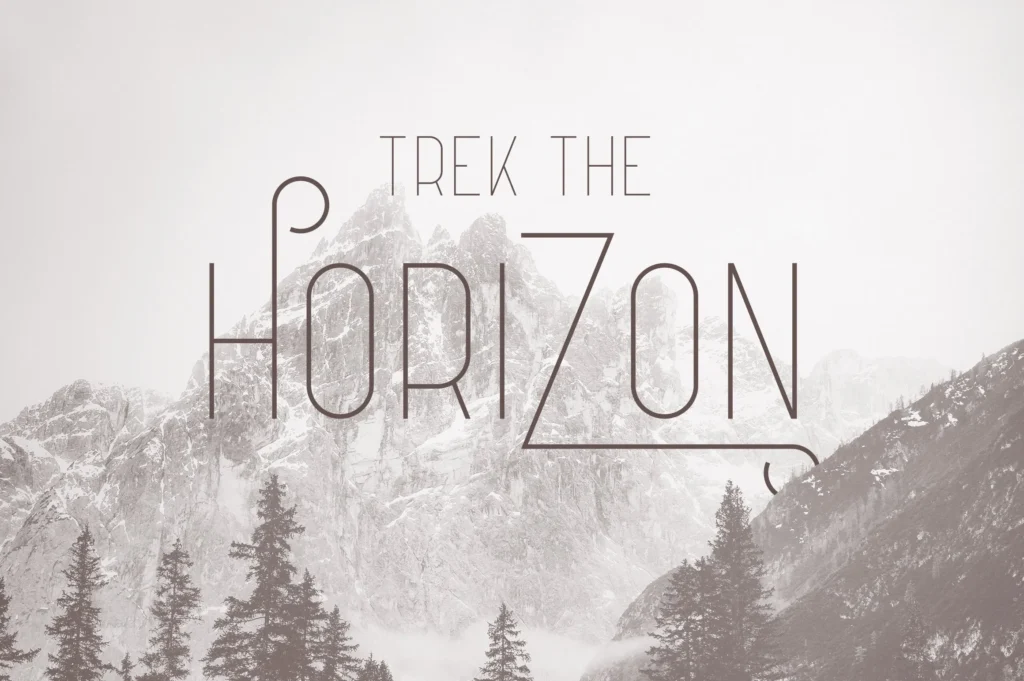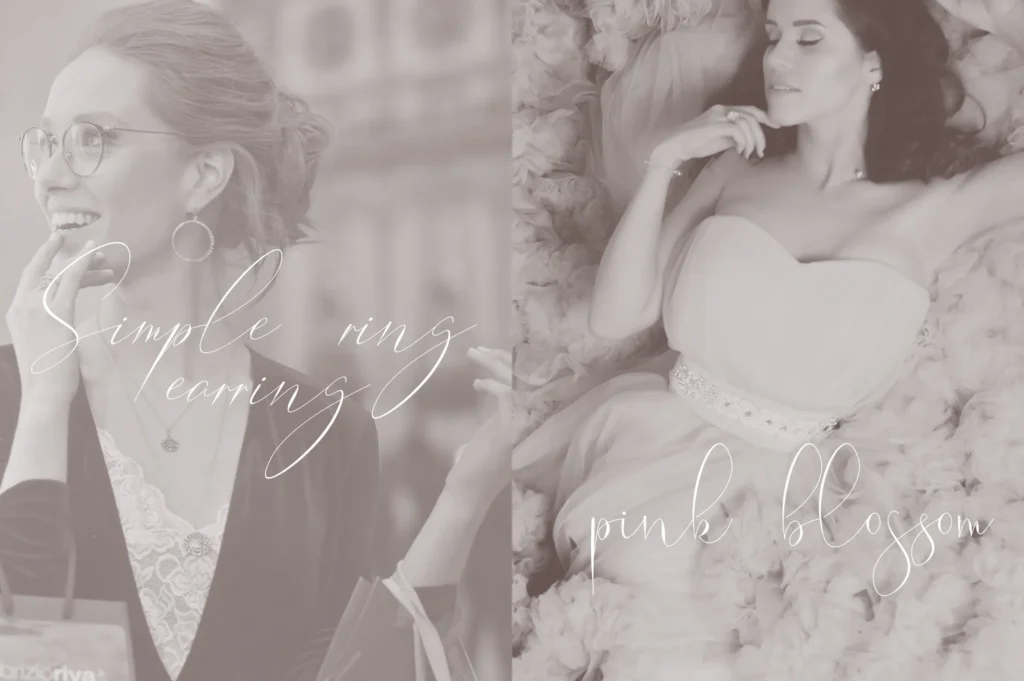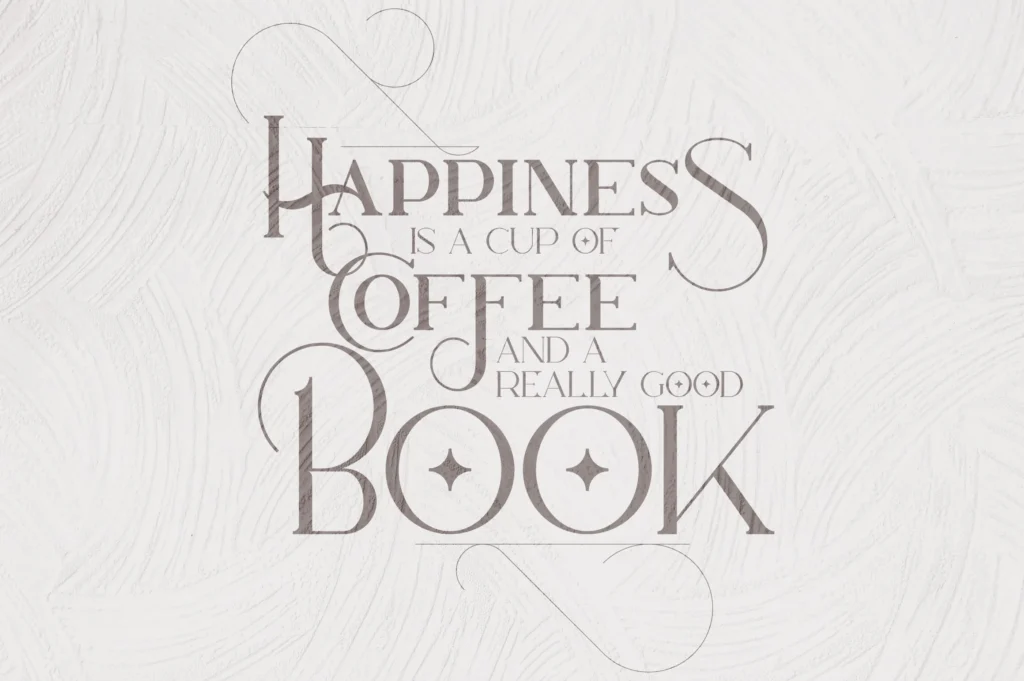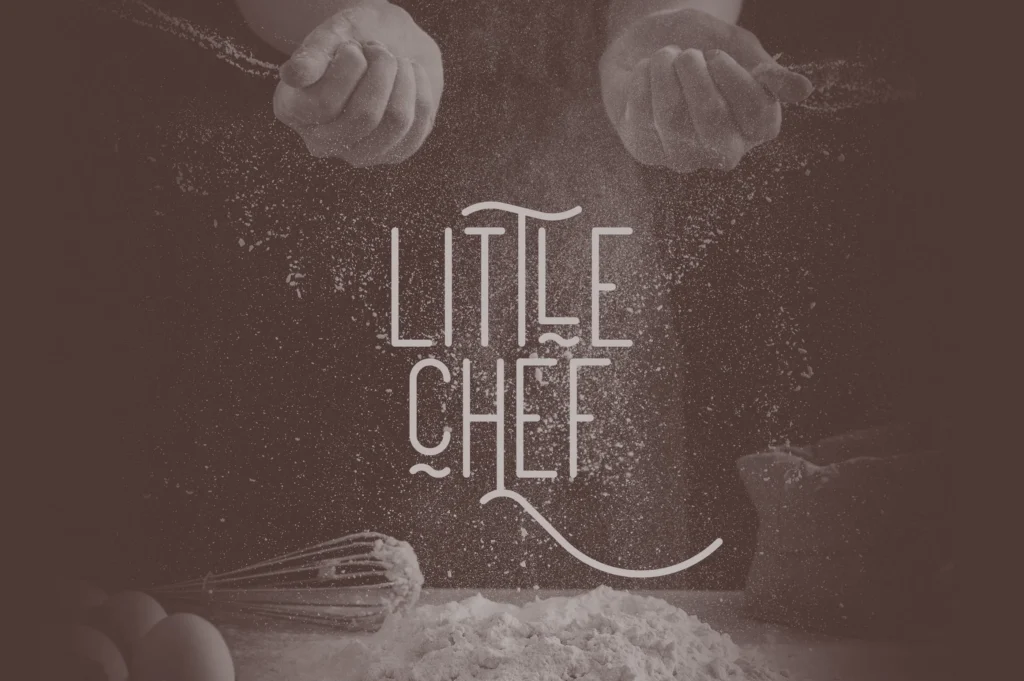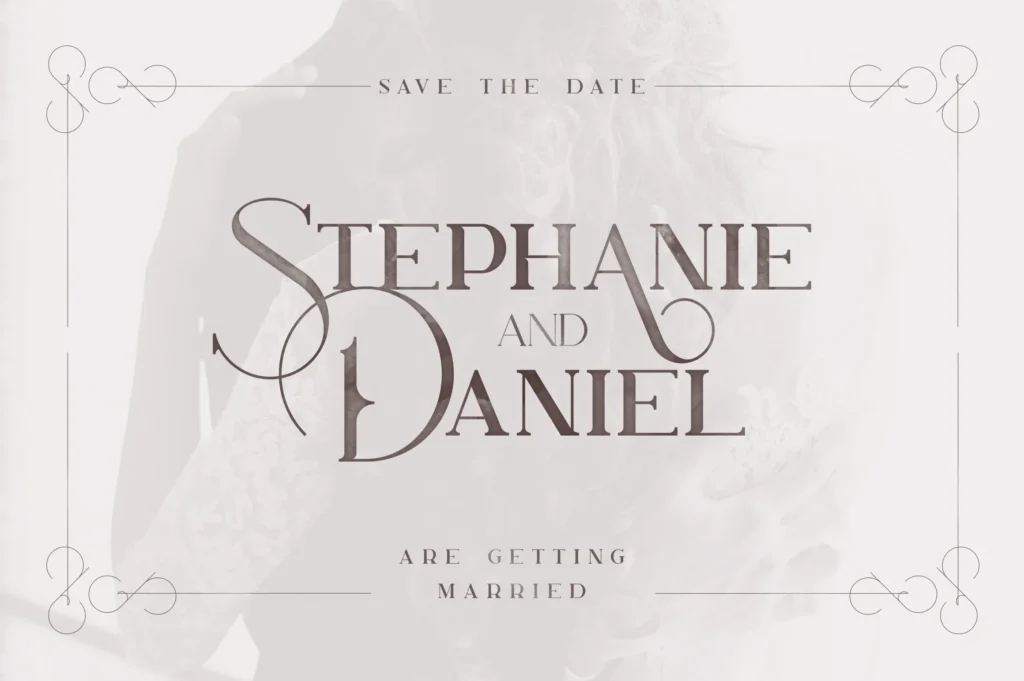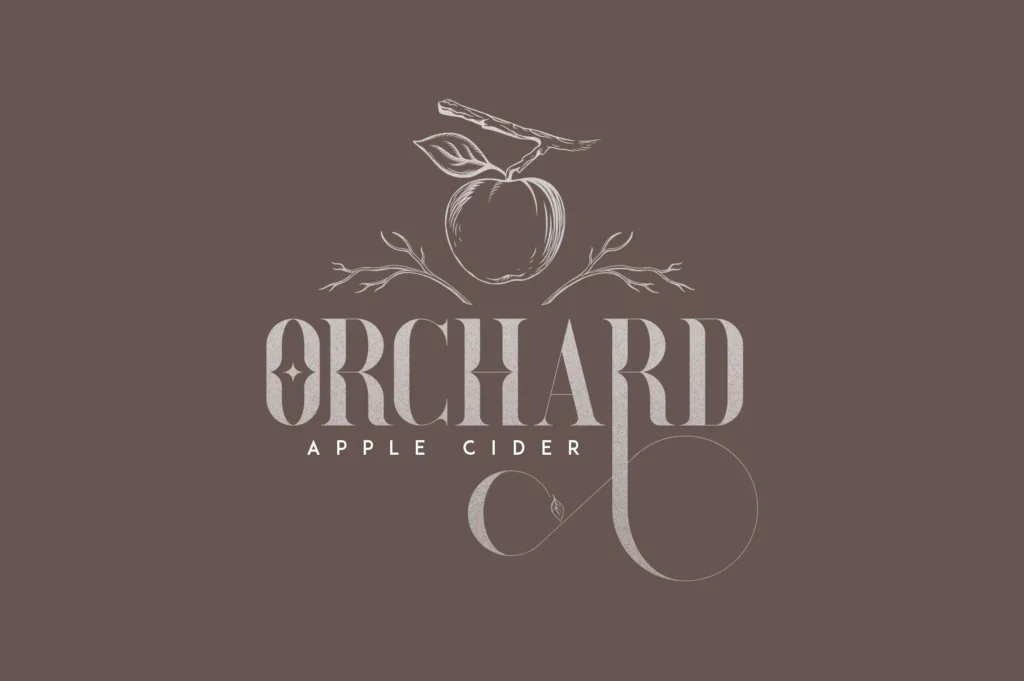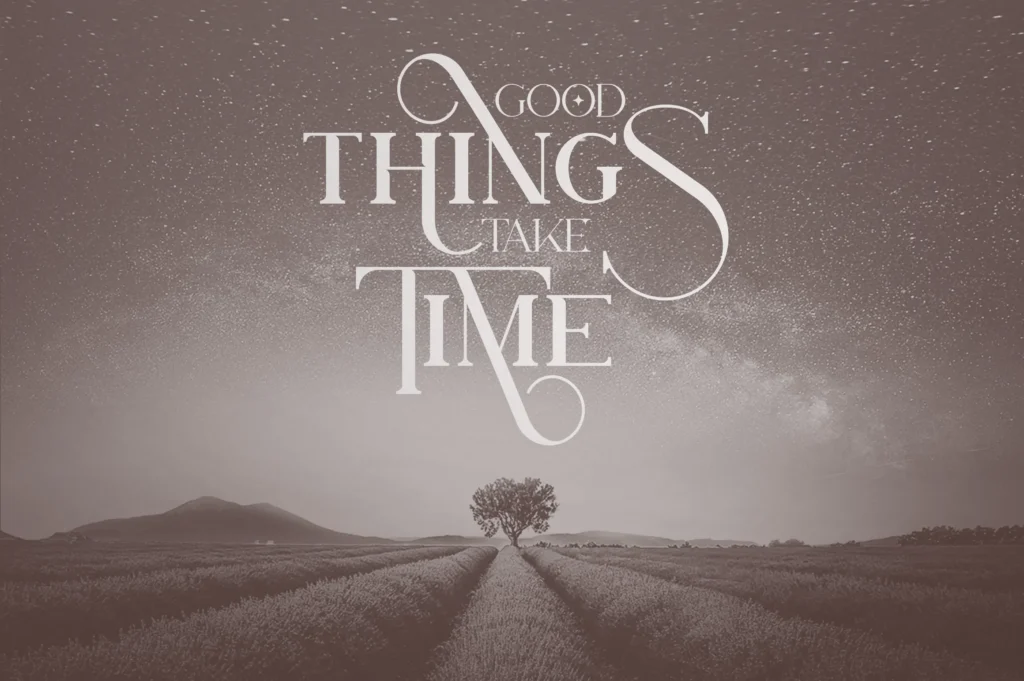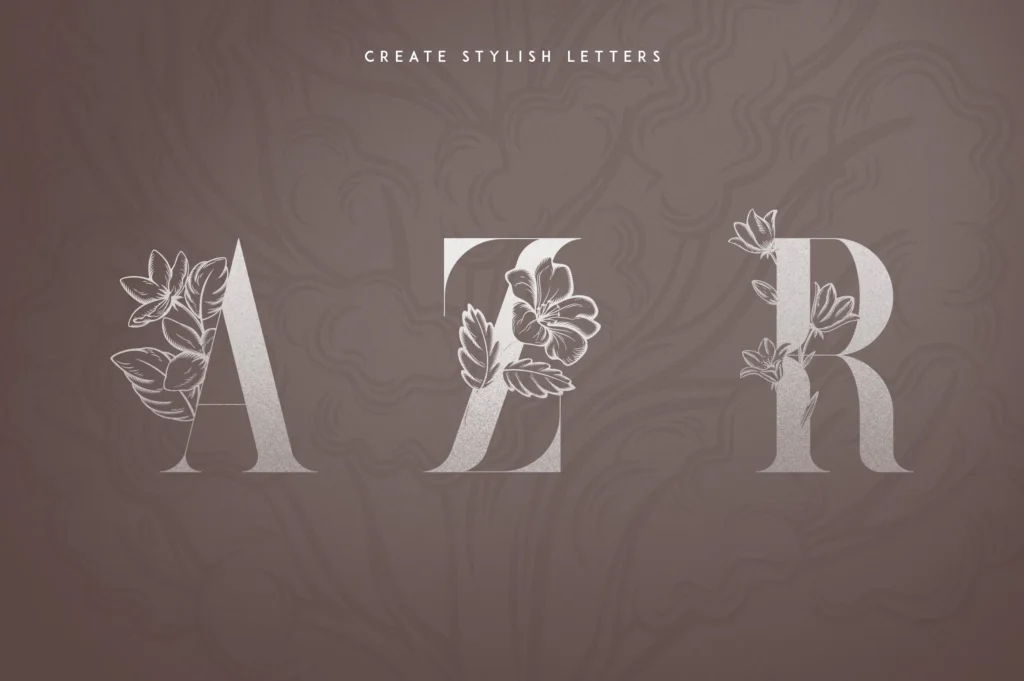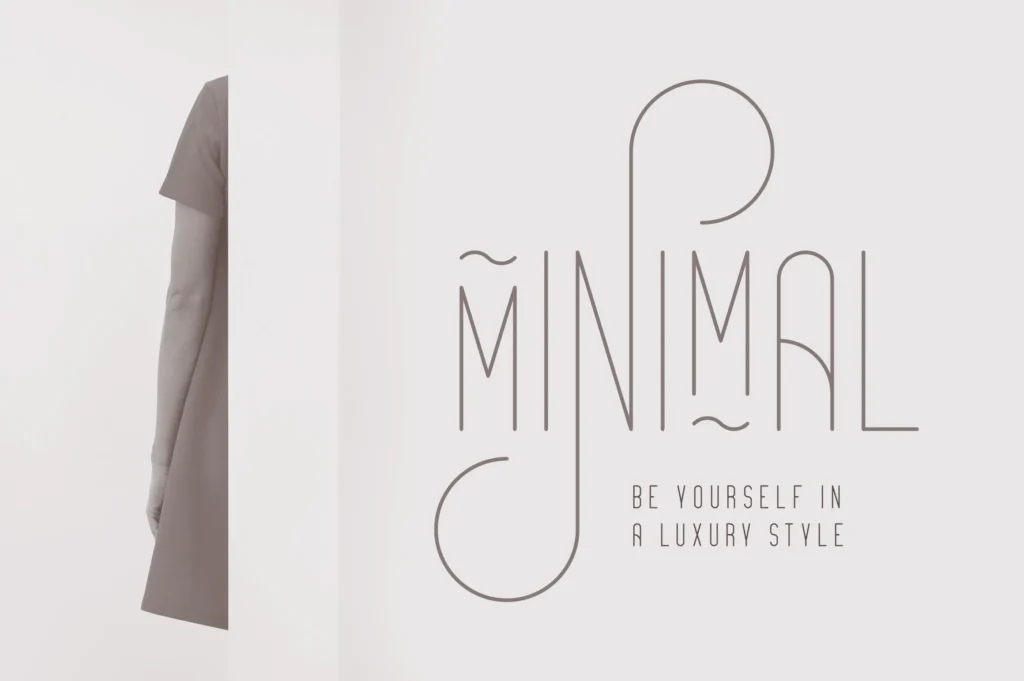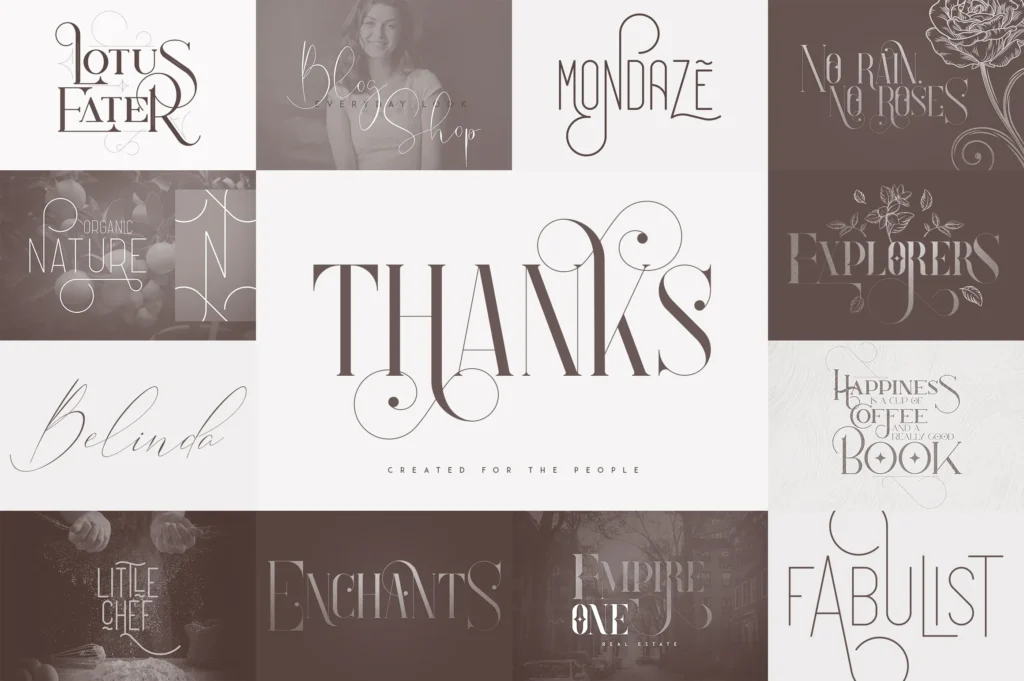
The Bestseller Font Collection
Introducing
T
he Bestseller Font Collection
A collection of
6 top selling typefaces in 1
bundle from
VPcreativeshop
.
In this collection you will find :
Fabulist – Display font
Explorers – Serif font + Extras
Lotus Eater – Vintage font + extras
Mondaze Typeface – 4 weights
Belinda Script – Regular & Italic
Enchants – Magical Font + Extras